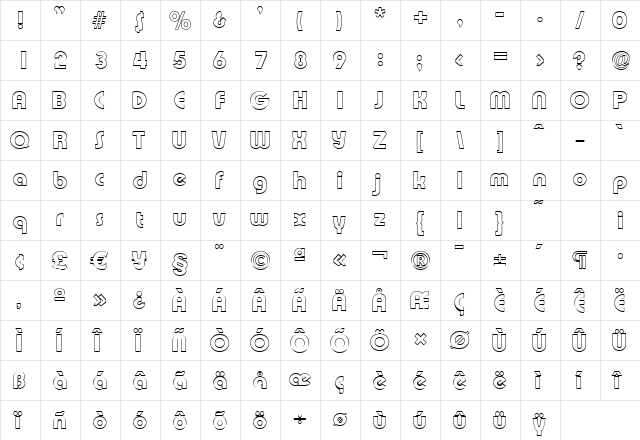
BrianBeckerOutline-ExtraBold Regular
Design Context for BrianBeckerOutline-ExtraBold Typeface
BrianBeckerOutline-ExtraBold brings ornamental detail and strong personality to headlines and identities, where visual impact matters more than quiet functionality. Its bold stroke weight gives it real presence on the page.
Font Pairing: Pair with a clean neutral sans-serif for body copy to let BrianBeckerOutline-ExtraBold's character lead without overwhelming the composition.
Pro Tip: Treat BrianBeckerOutline-ExtraBold as the centrepiece of your typographic hierarchy. One strong heading set in a decorative face can carry an entire layout.